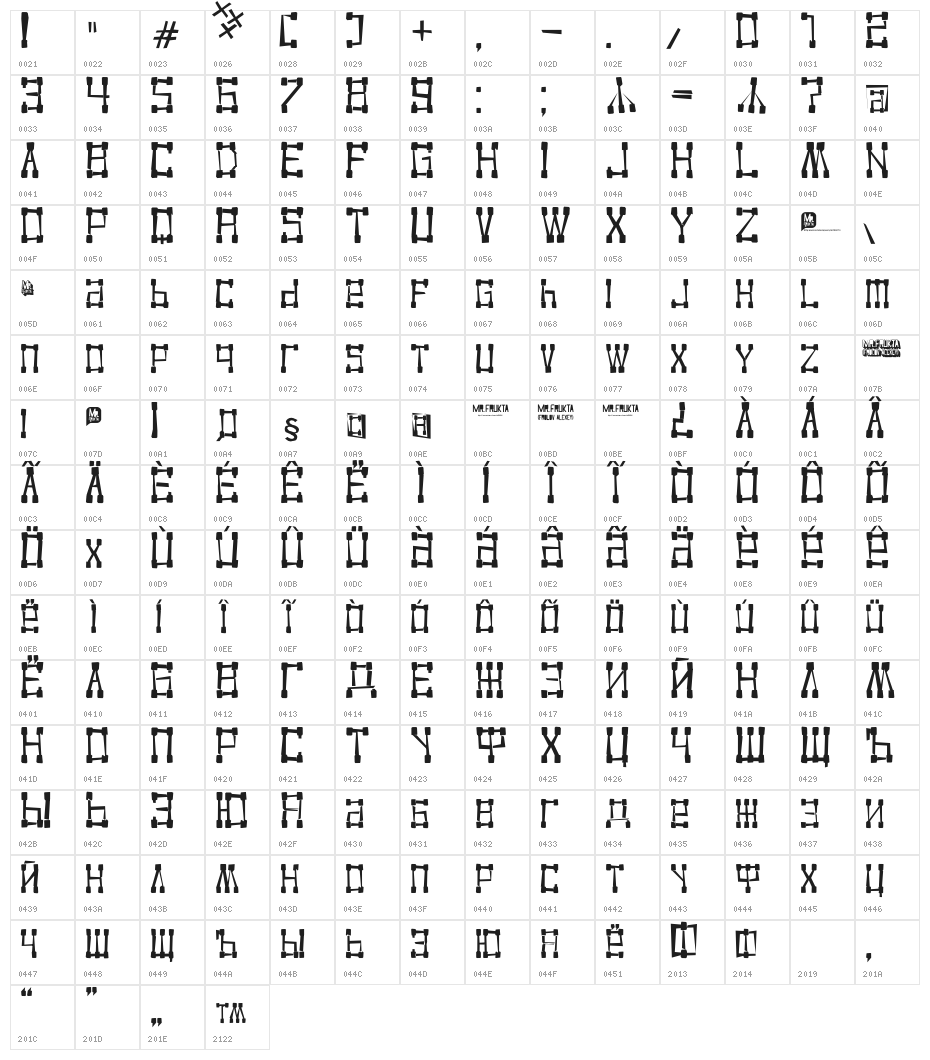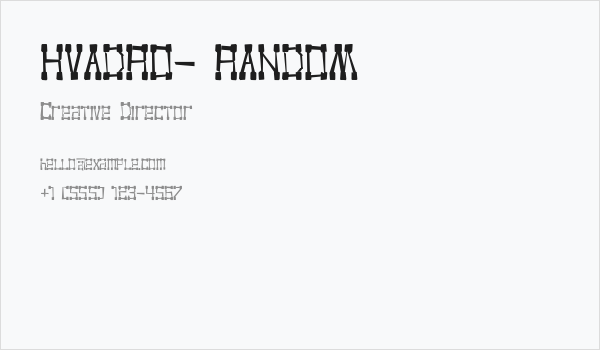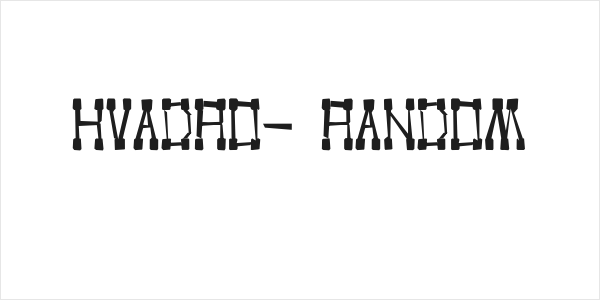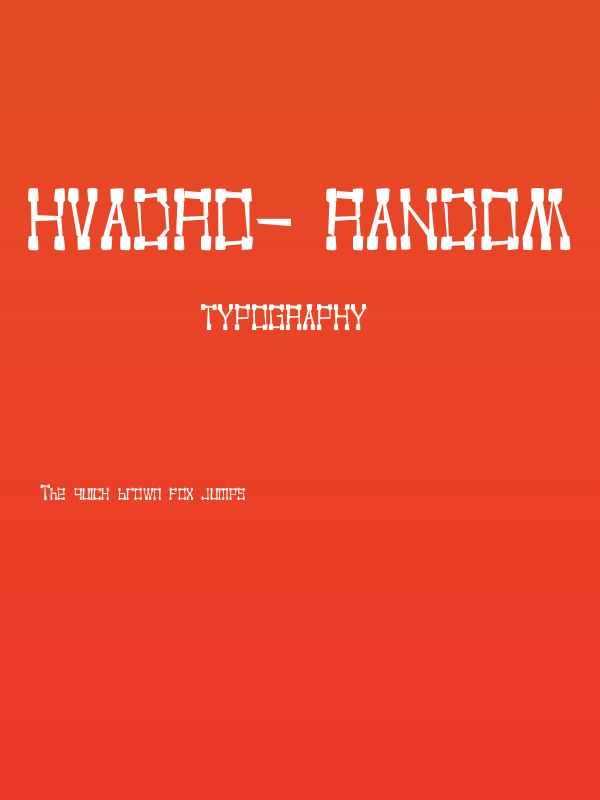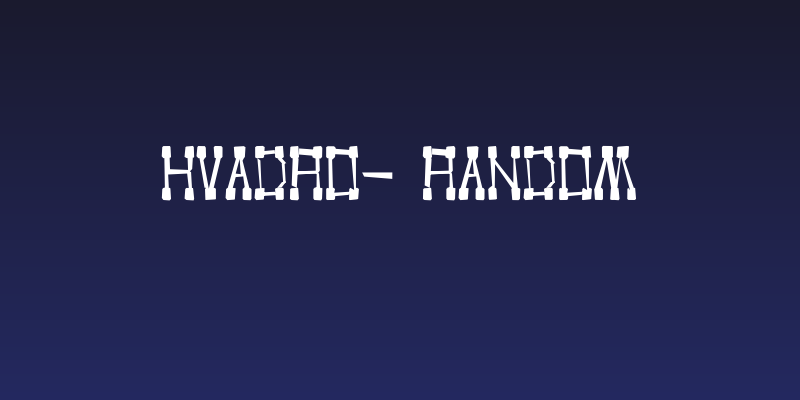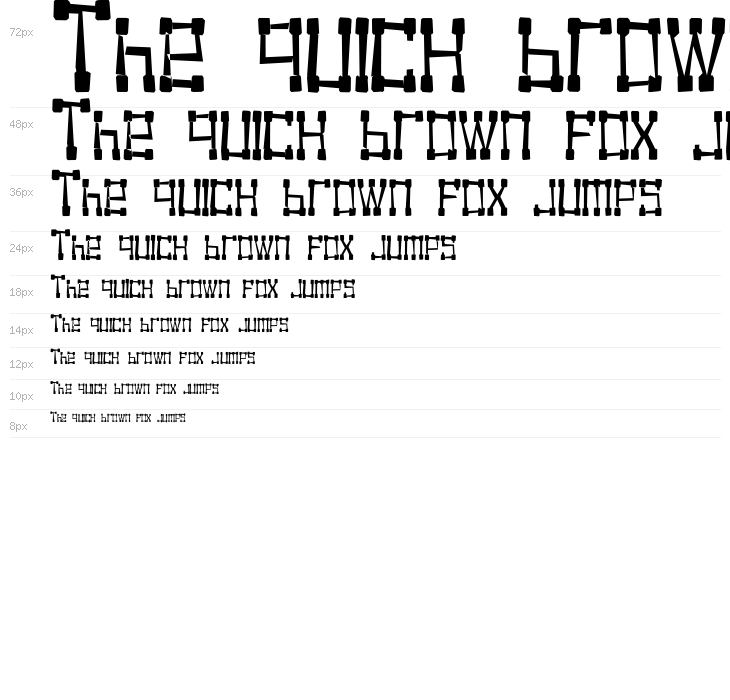
KVADRO- RANDOM Font
KVADRO- RANDOM Description
This font features a unique, blocky design with a playful and geometric aesthetic. Each character is constructed with a series of thick, bold strokes that create a sense of structure and solidity. The letters have a consistent height and width, giving the font a monospaced appearance, although it is not strictly monospaced. The angular and rigid shapes of the characters contribute to a modern and edgy look. The font includes both uppercase and lowercase letters, numbers, and a selection of special characters. Its bold and distinctive style makes it suitable for attention-grabbing headlines or creative design projects where a strong visual impact is desired.
| Proposed Projects | Ideal for posters, logos, video game graphics, or any project requiring a bold and modern typeface. |